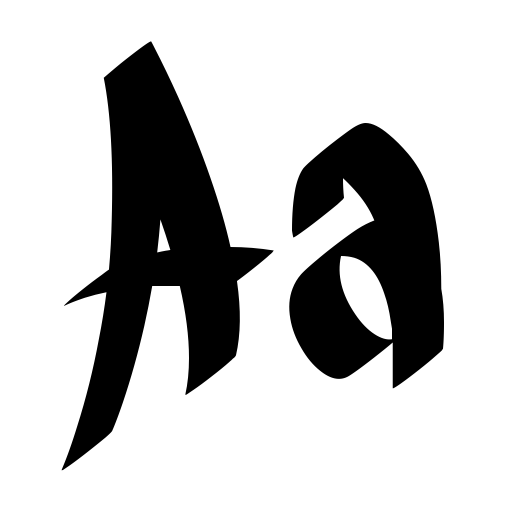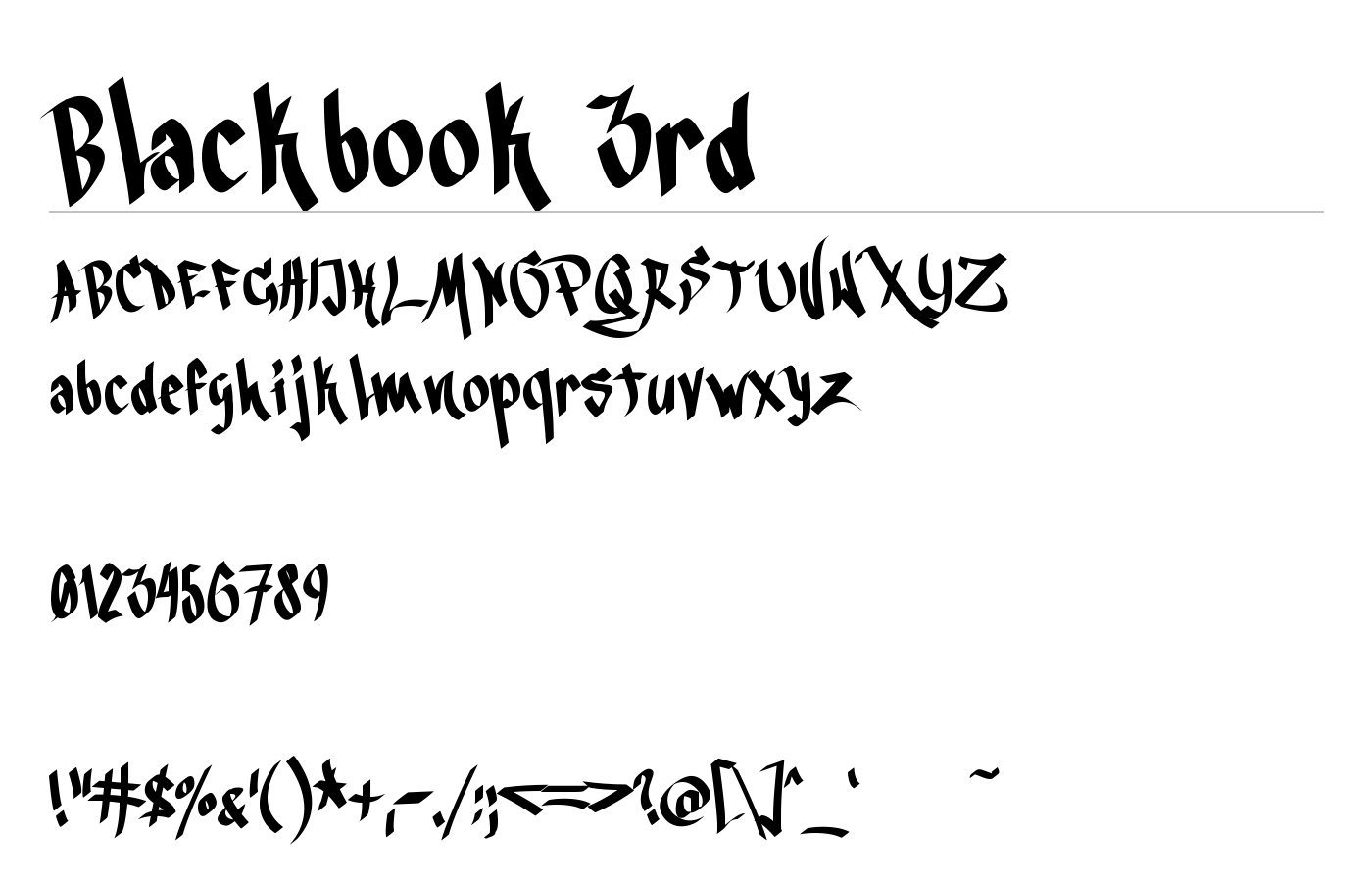
Blackbook 3rd Font is a bold, decorative typeface with a unique, sharp-edged style that blends gothic and calligraphic influences, making it ideal for eye-catching headlines and creative branding. Its irregular forms and dramatic flair lend a mysterious, energetic personality that suits artistic projects, posters, and logos needing a distinctive, edgy look. This font excels where a strong visual impact and unconventional style are desired, rather than long text readability.
Blackbook 3rd Font
About Blackbook 3rd Font
| Font family | Blackbook 3rd Font |
| Designer | Michael Muranaka |